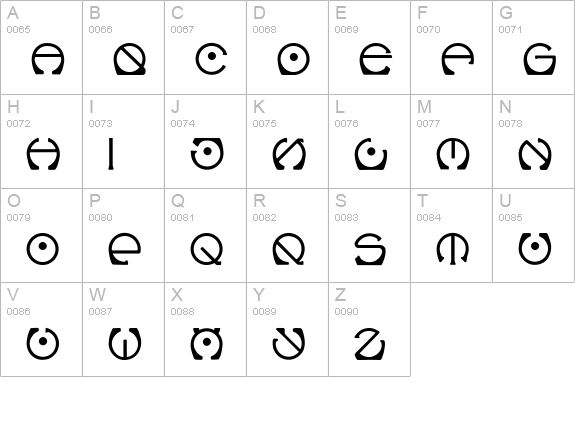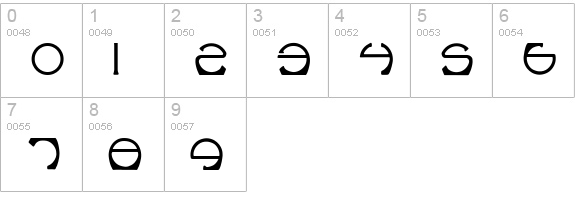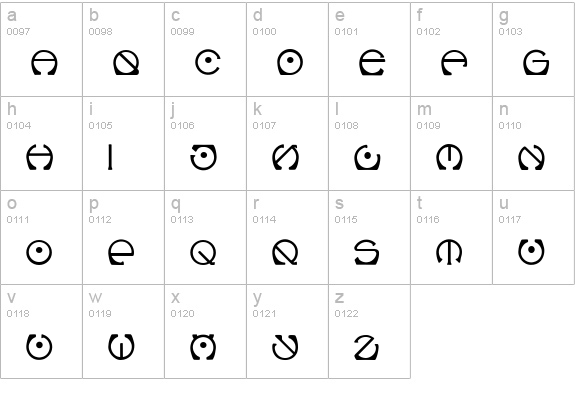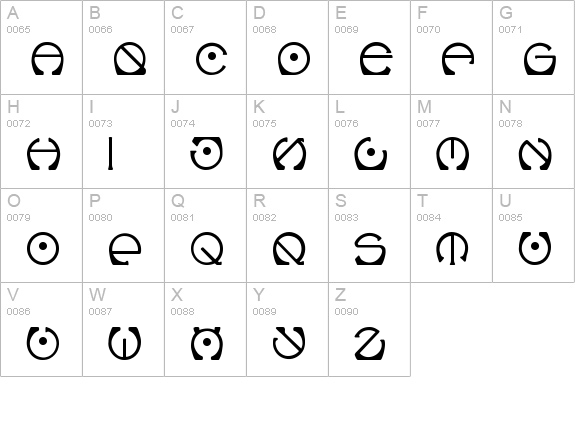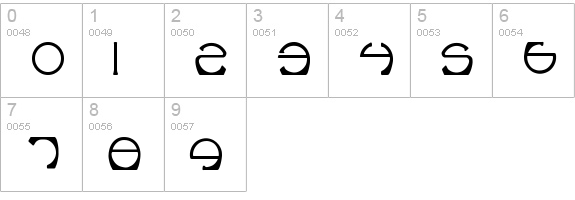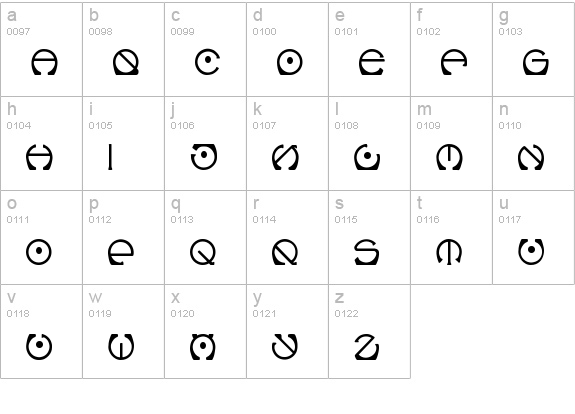
Vienna-Round Font Details
Vienna-Round is a stunning and versatile font that adds a touch of elegance and sophistication to any design project. Its round and smooth letterforms create a harmonious and pleasing visual experience, making it perfect for a wide range of applications such as branding, packaging, advertising, and more. With its unique combination of classic and contemporary elements, Vienna-Round effortlessly captures attention and leaves a lasting impression. Its balanced proportions and gentle curves give it a friendly and approachable appearance, making it equally suitable for both formal and informal designs. One of the standout features of Vienna-Round is its wide range of weights and styles. Whether you're looking for something bold and impactful or something more delicate and refined, this font has got you covered. Its versatility allows you to create a cohesive and consistent visual identity across various design projects. And the best part? Vienna-Round is completely free! Yes, you read that right. This amazing font is freely available to download at FontsMarket.com. So you can elevate your designs without having to worry about any additional costs. So why wait? Start using Vienna-Round today and experience the power and beauty of this exceptional font. With its timeless appeal and endless possibilities, it is sure to become a valuable asset in your typography toolbox. Download it now at FontsMarket.com and let your creativity soar.